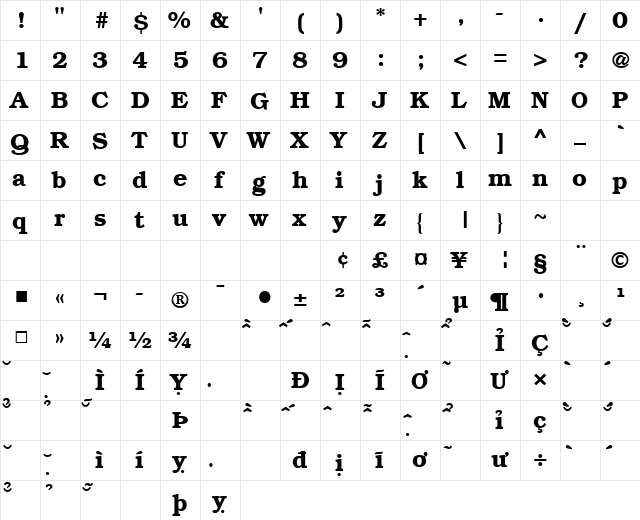
VNI-Book Bold
Design Context for VNI-Book Typeface
VNI-Book takes a measured approach to typography — its balanced proportions and neutral character make it a reliable workhorse for both digital and print work. The heavy weight commands attention and anchors typographic hierarchies.